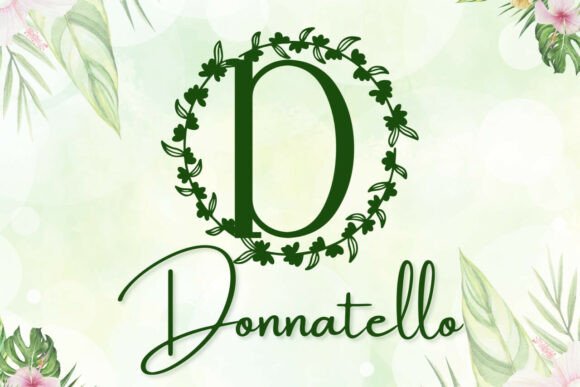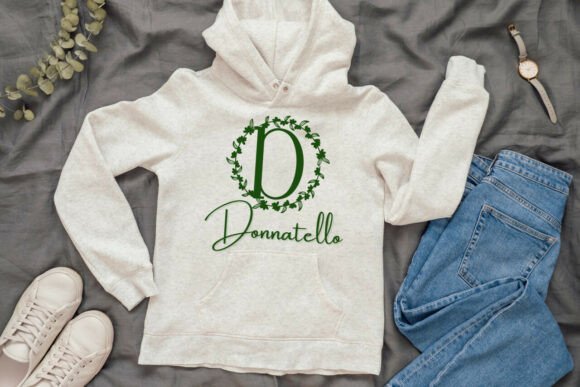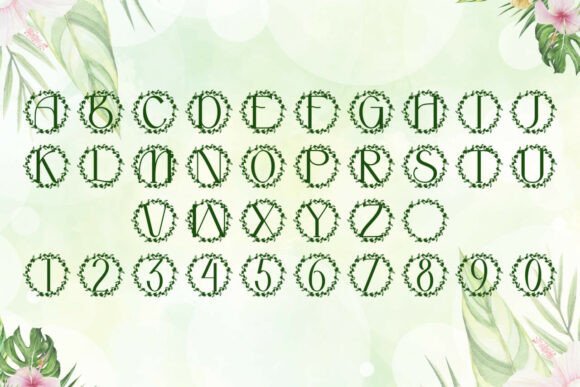
Introduction to Florcrest Monogram Font
Meet Florcrest, the Monogram Font Florcrest Monogram Font turns initials into graceful emblems with a subtle botanical touch.
Strokes feel clean and poised Curves stay open, so tiny tags still read clearly.